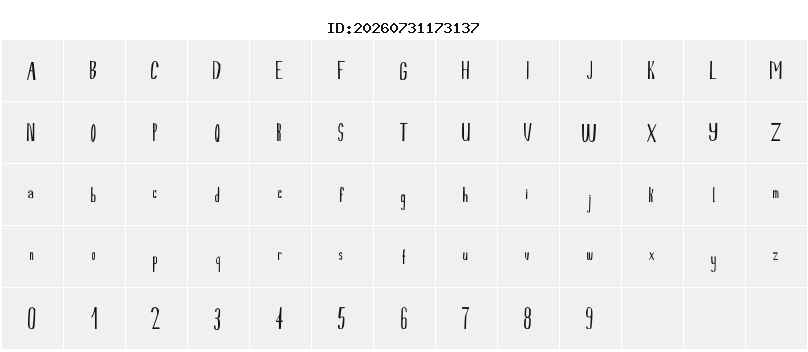
Lemurika Preview
• Font Name: Lemurika
• Full Font Name: Lemurika
About Lemurika.ttf
Lemurika.ttf is a modern, elegant sans-serif font designed for ultimate readability and visual harmony. Perfect for branding, headlines, web design, and print materials.